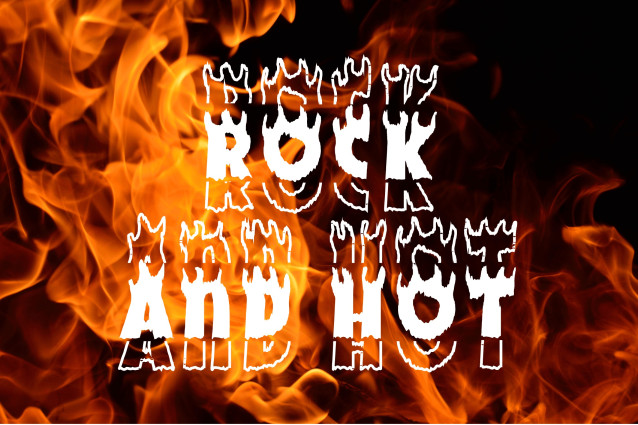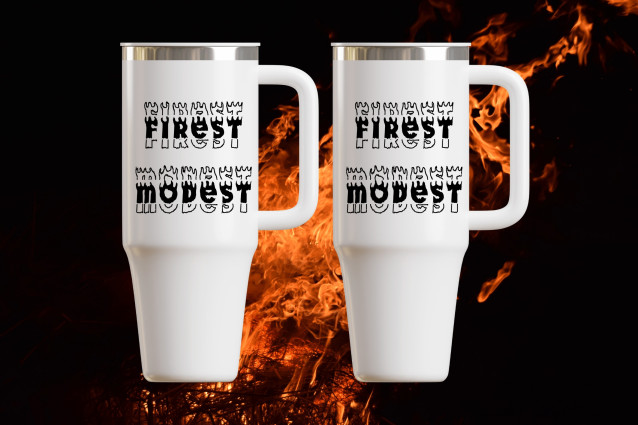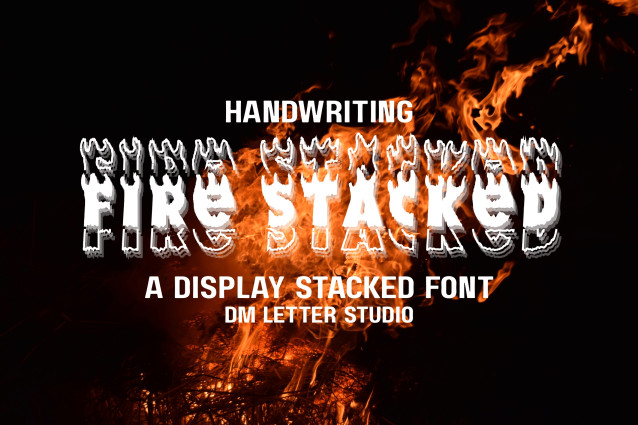
Handwriting Fire Stacked Font
Handwriting Fire Stacked Font is a daring, stacked variation of the original Handwriting Fire font. With its vertically arranged characters and fiery flair, it’s perfect for creating eye-catching titles, bold branding, dramatic quotes, and Halloween or gaming-inspired designs. The stacked format amplifies the intensity, making this font a striking choice for any layout that needs heat, energy, and visual impact.